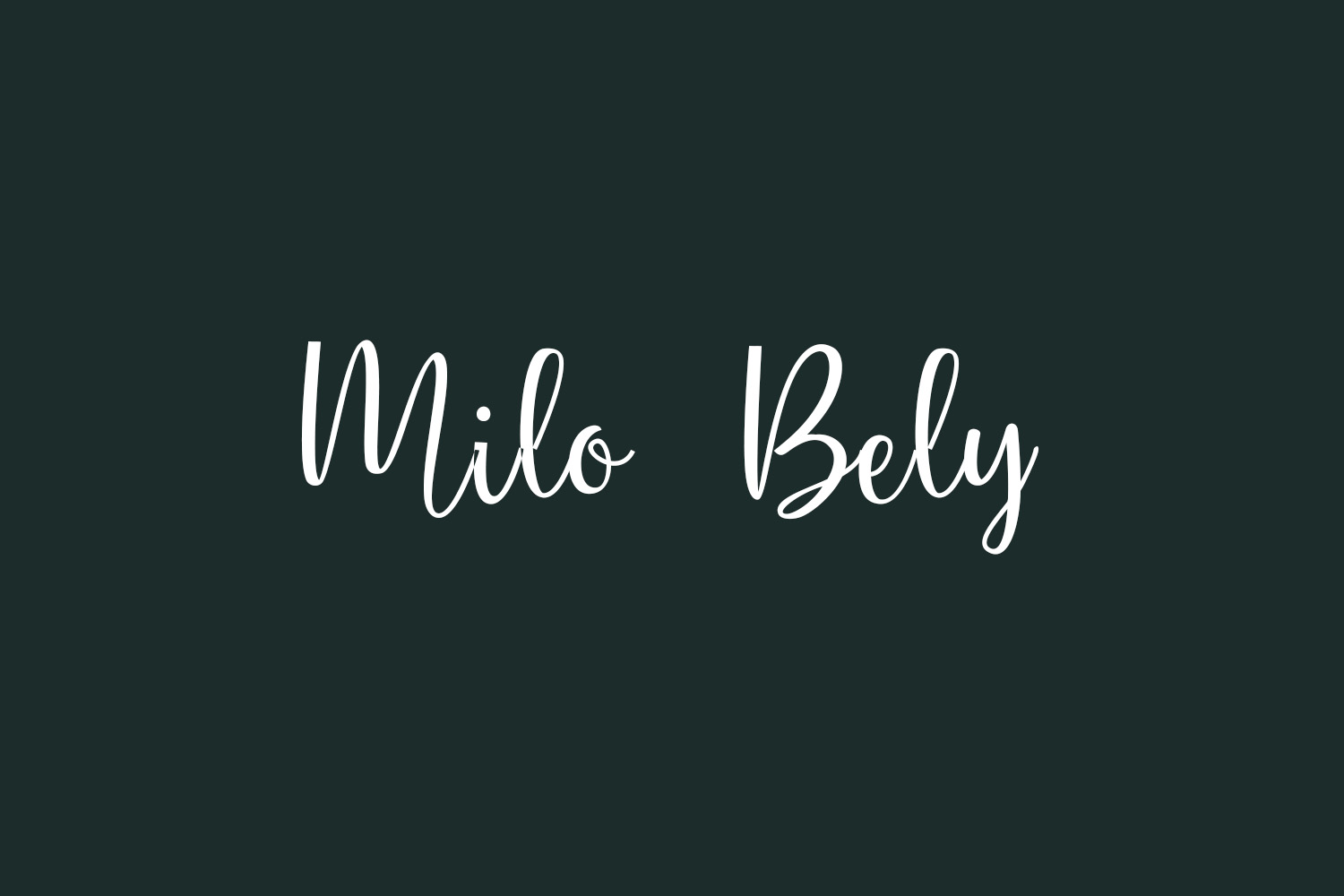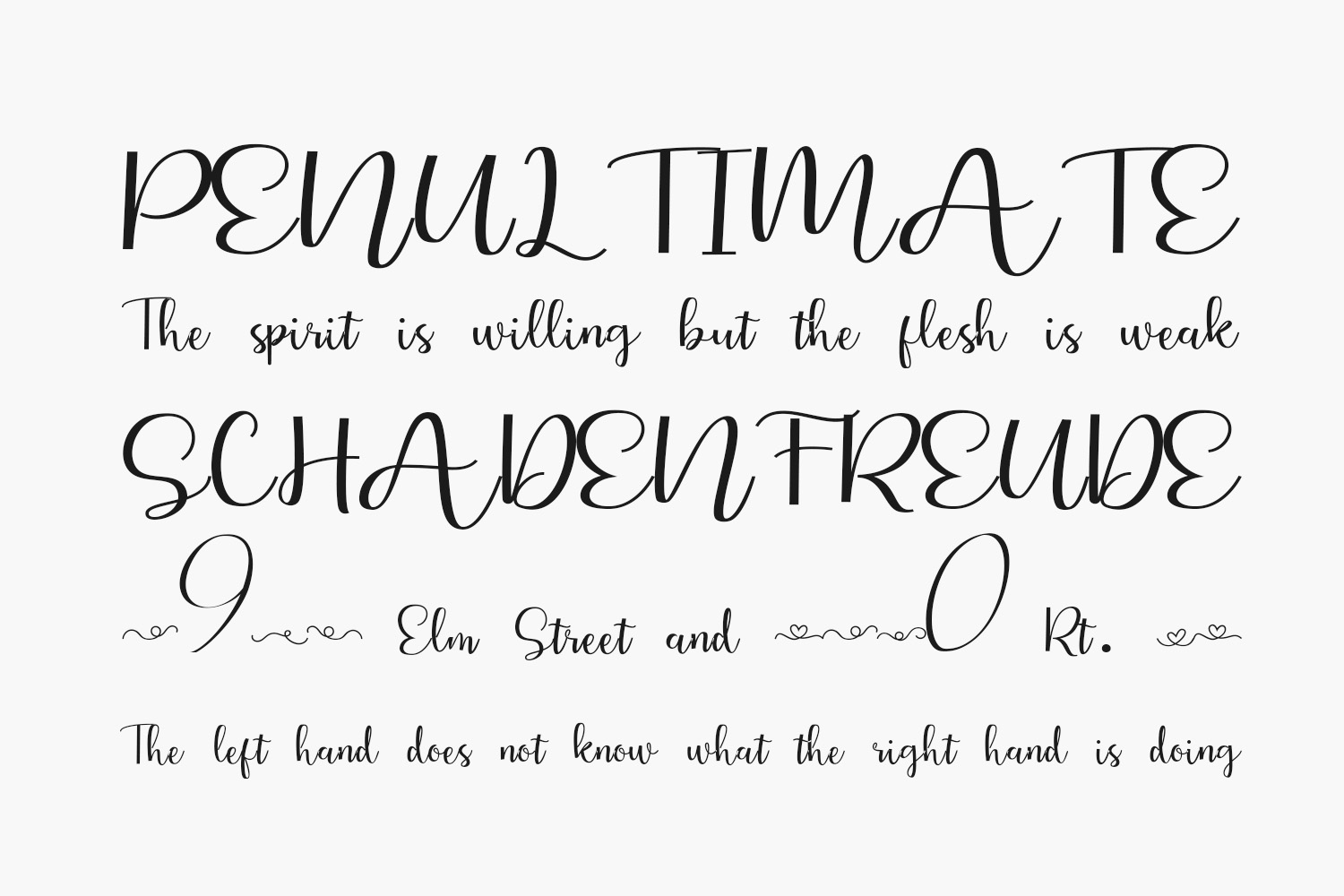
Milo Bely Free Font is a modern and lovely handwritten font with an incredibly friendly feel. Use this amazing and unique font to bring any DIY project to life. Milo Bely Free Font was designed by Pustudio and is free for personal use only. Please purchase the full version for commercial use.